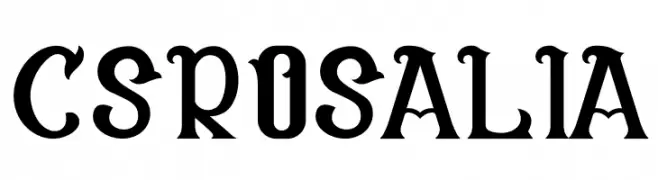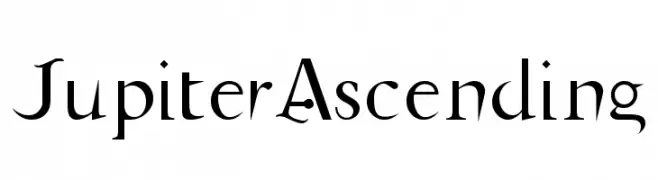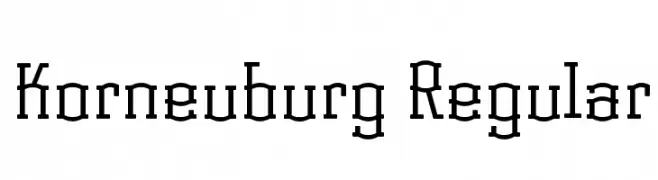
( Craft Supply Co. - creativemarket.com/craftsupplyco )
A bold, decorative font with intricate detailing and a blend of classic and modern elements.
( DanielWarner123 - Daniel Alessandro - facebook.com/danielfadosbt )
A sophisticated serif font with a blend of classic and modern elements.
( Flö Rastbichler - www.elopedthought.com )
A bold, geometric serif font with a modern and vintage blend.
( Jakub Sloup )
A modern font blending geometric sans-serif and elegant script styles.
( James Barnardo )
A calligraphic font with dynamic strokes and a blend of traditional and modern elements.
( Luc Mahler )
A tall, narrow font with high contrast and a blend of vintage and modern styles.
( Manuel )
A playful and bold font with a unique blend of curves and sharp edges.
( Omegaville - B.J. Winzer )
A pixelated cursive font blending classic script with retro digital aesthetics.
( Reiner Lomanto )
A decorative serif font with sharp serifs and elegant curves, blending traditional and modern styles.